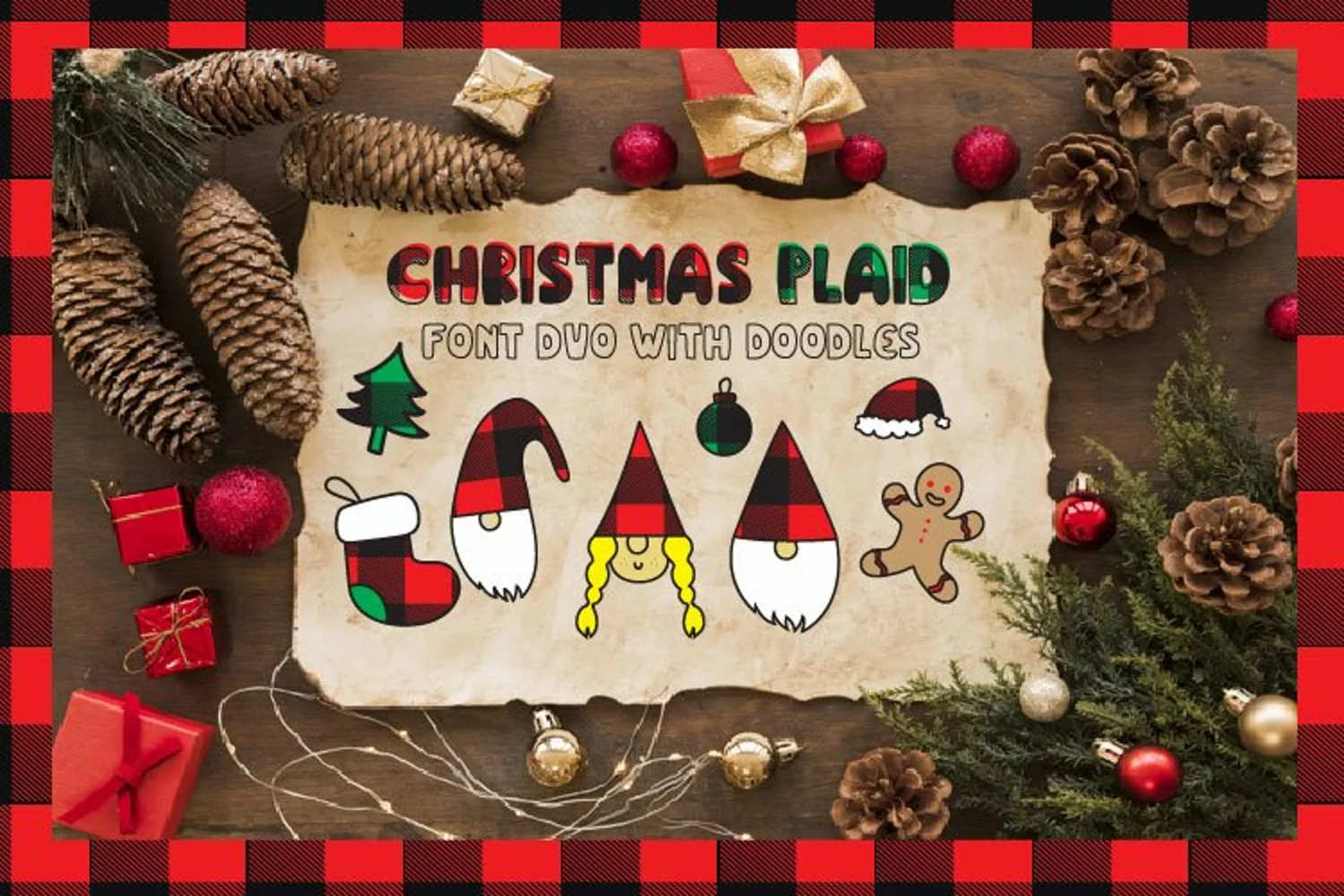
Christmas buffalo plaid font with doodles elements
Christmas plaid is a perfect font for Christmas season with doodles elements or on Valentine's Day, you can superimpose the 2 versions a little out of place to give a modern style, or use only one; Christmas elements will help you create designs for this season.
The font contains the uppercase letters in 2 versions with some signs and numbers from 0-9.